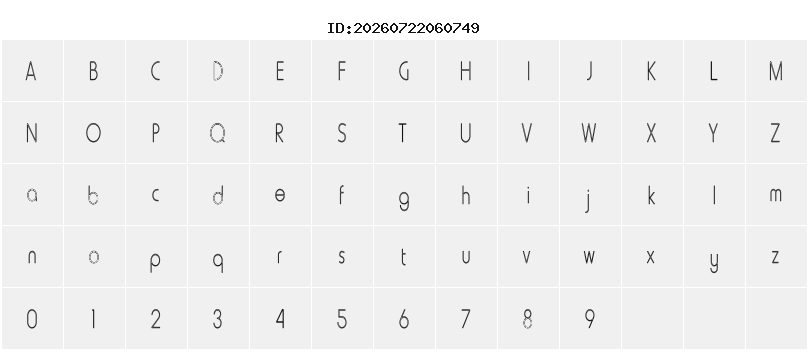
About Howard-LightHC.ttf
Howard-LightHC.ttf is a modern, elegant sans-serif font designed for ultimate readability and visual harmony. Perfect for branding, headlines, web design, and print materials.